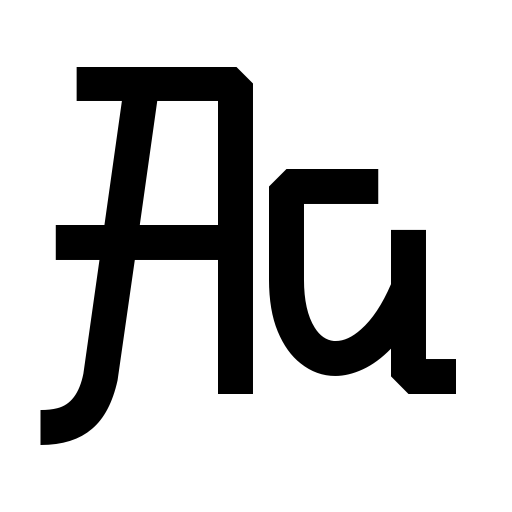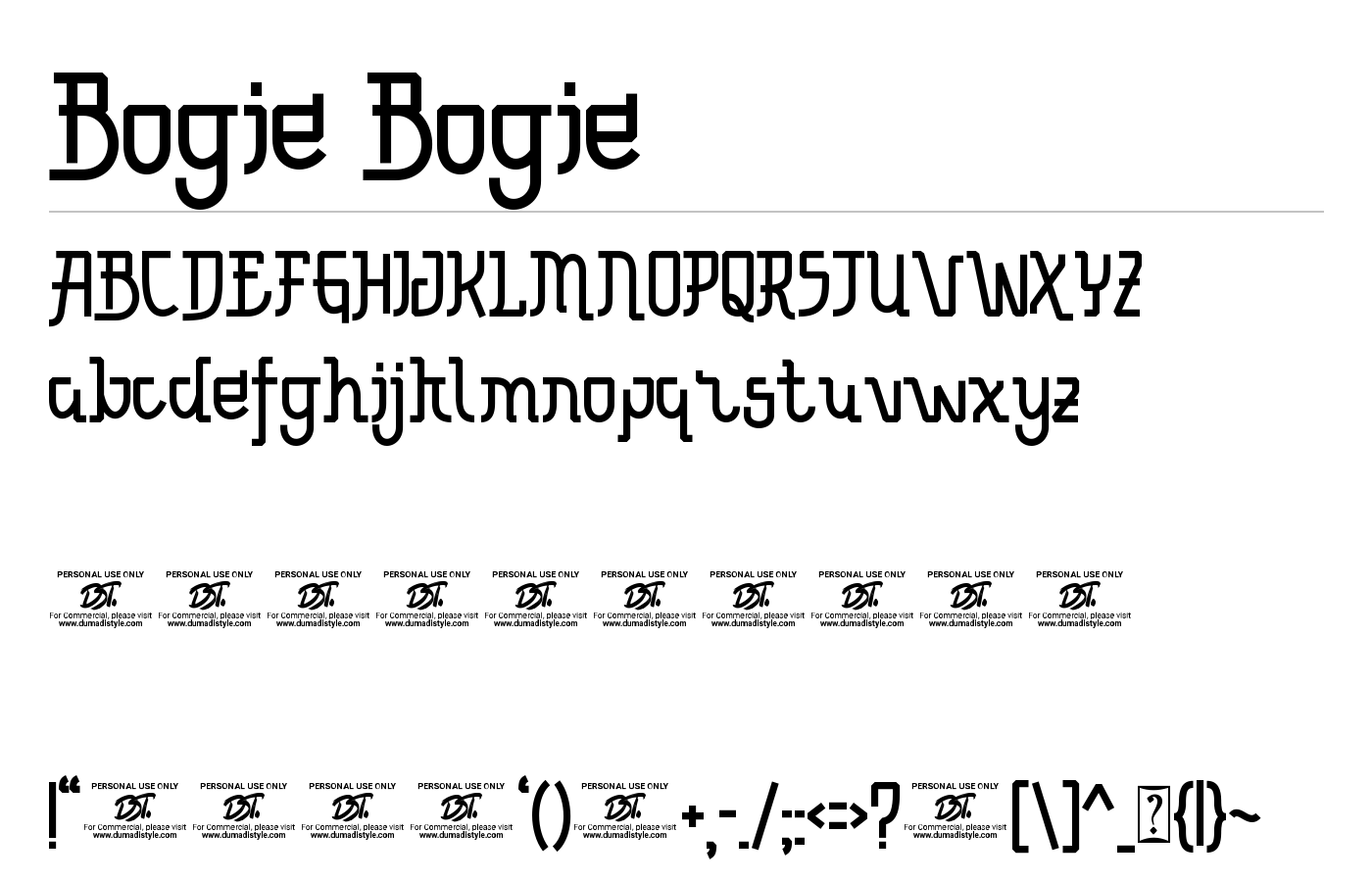
Bogie Bogie is a distinctive slab serif font that features a narrow, condensed structure with bold, block-like serifs and moderate stroke contrast. Its quirky, geometric letterforms and unique character details give it a vintage yet playful vibe, making it ideal for logos, posters, and branding that seek a strong, memorable personality. This font works best in headlines or display use where its interesting shapes can stand out and grab attention.